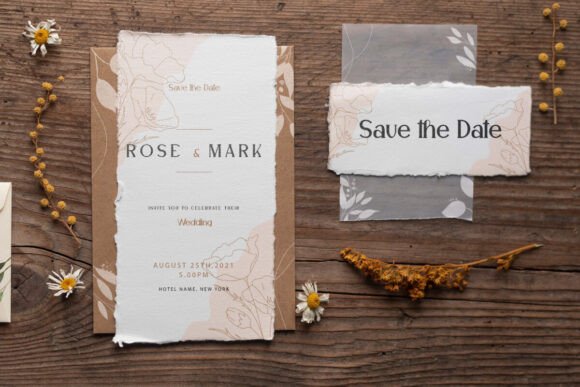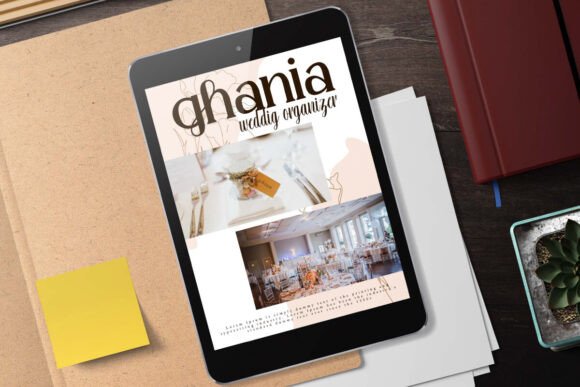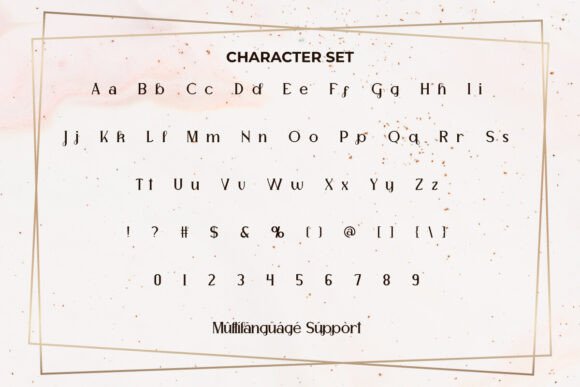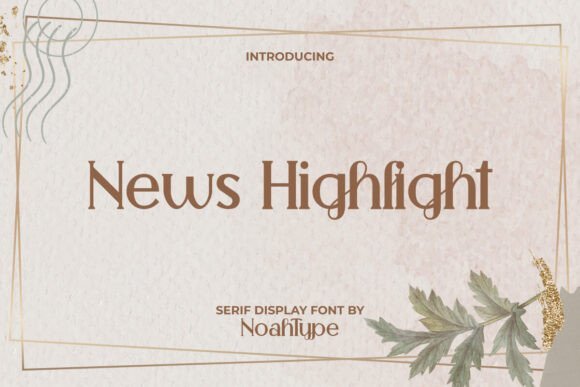
Introduction to News Highlight Font
News Highlight Font is an artistically stunning well decorated serif display font by NoahType.
This font has a unique shape and is suitable for design concepts that have themes of beauty, nature and luxury It will be good for any designs, such as brand image, custom design, invitation, label, magazine, poster, product packaging, quote, signage, stationery, website page, and more.